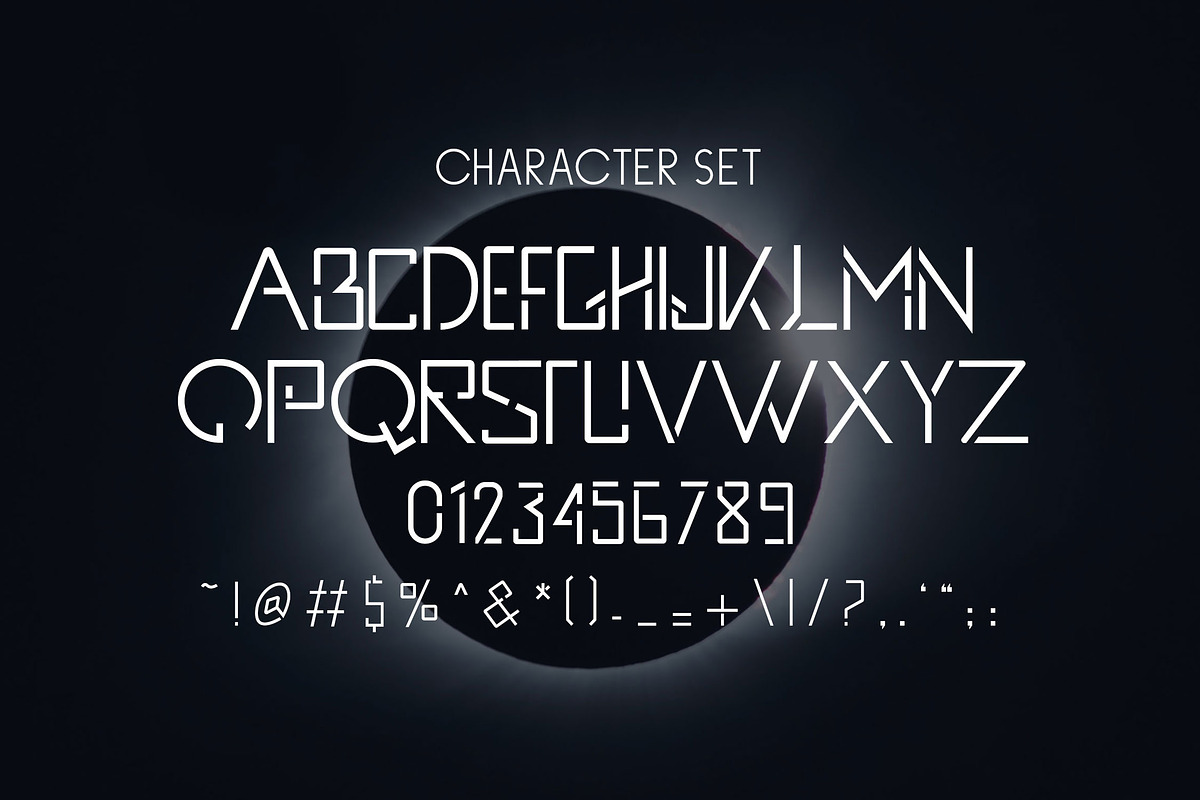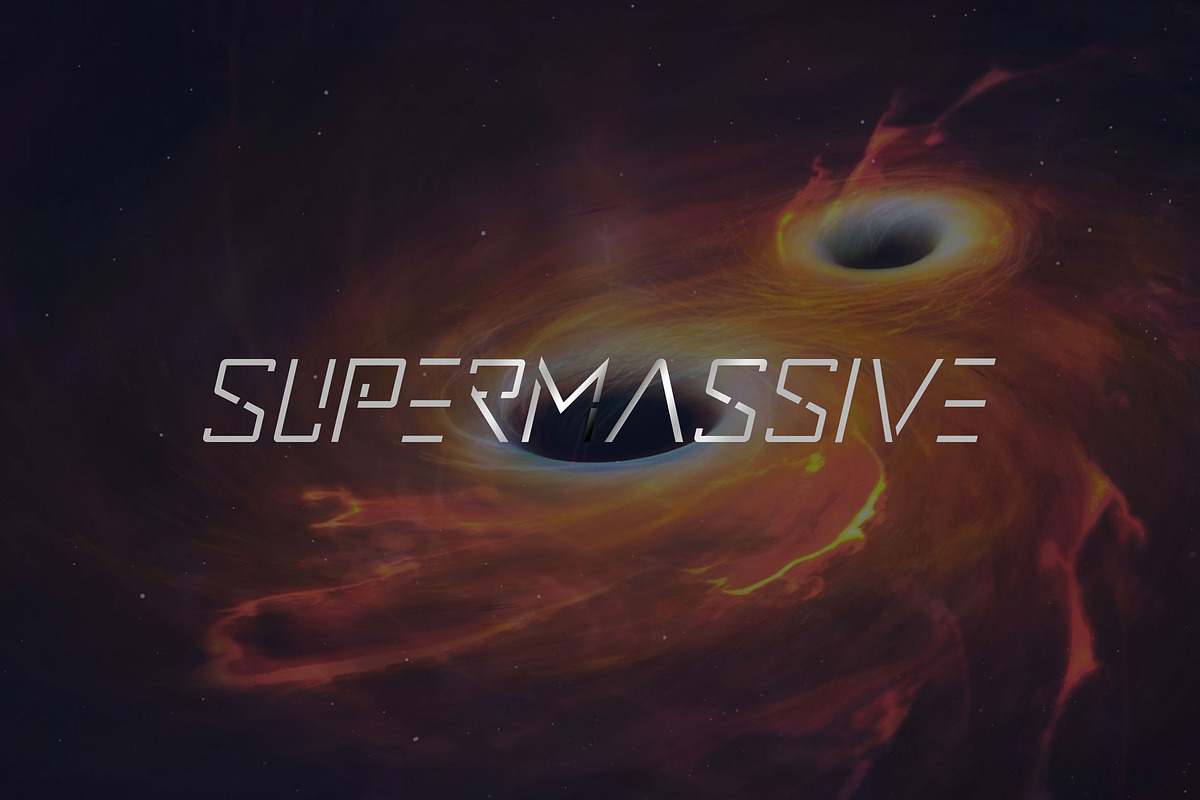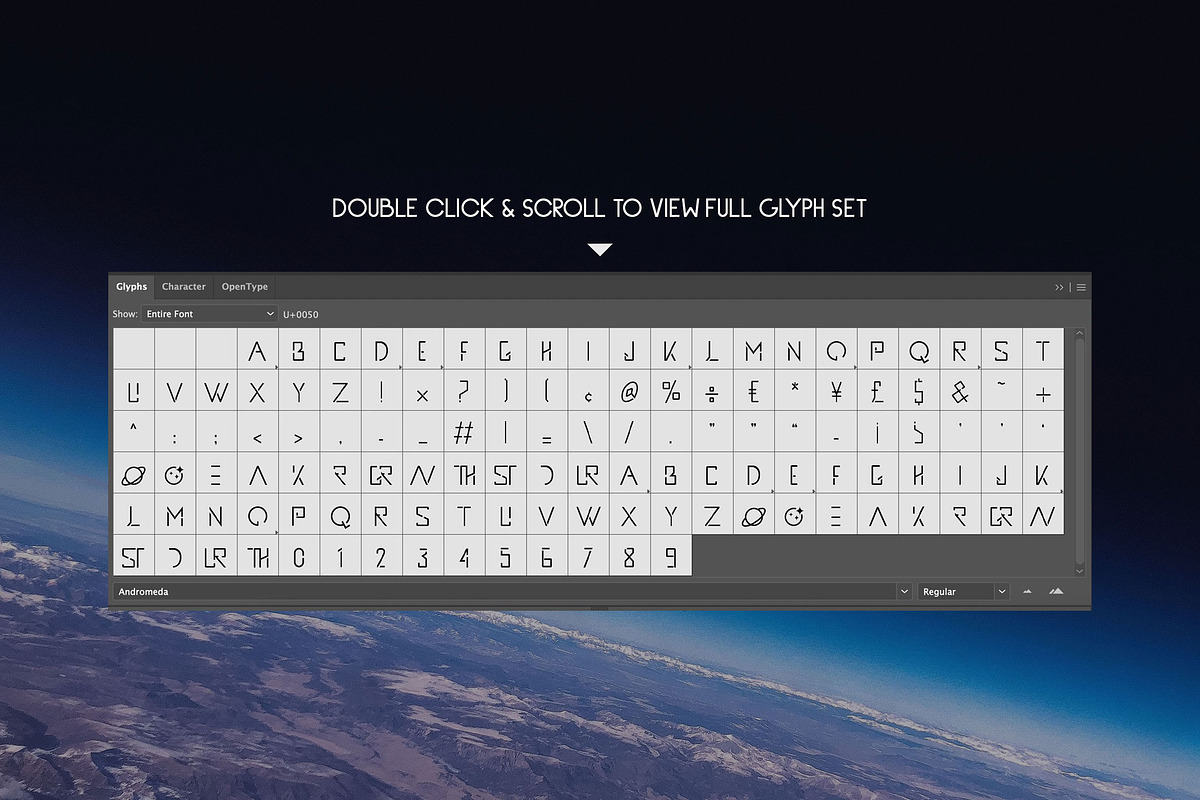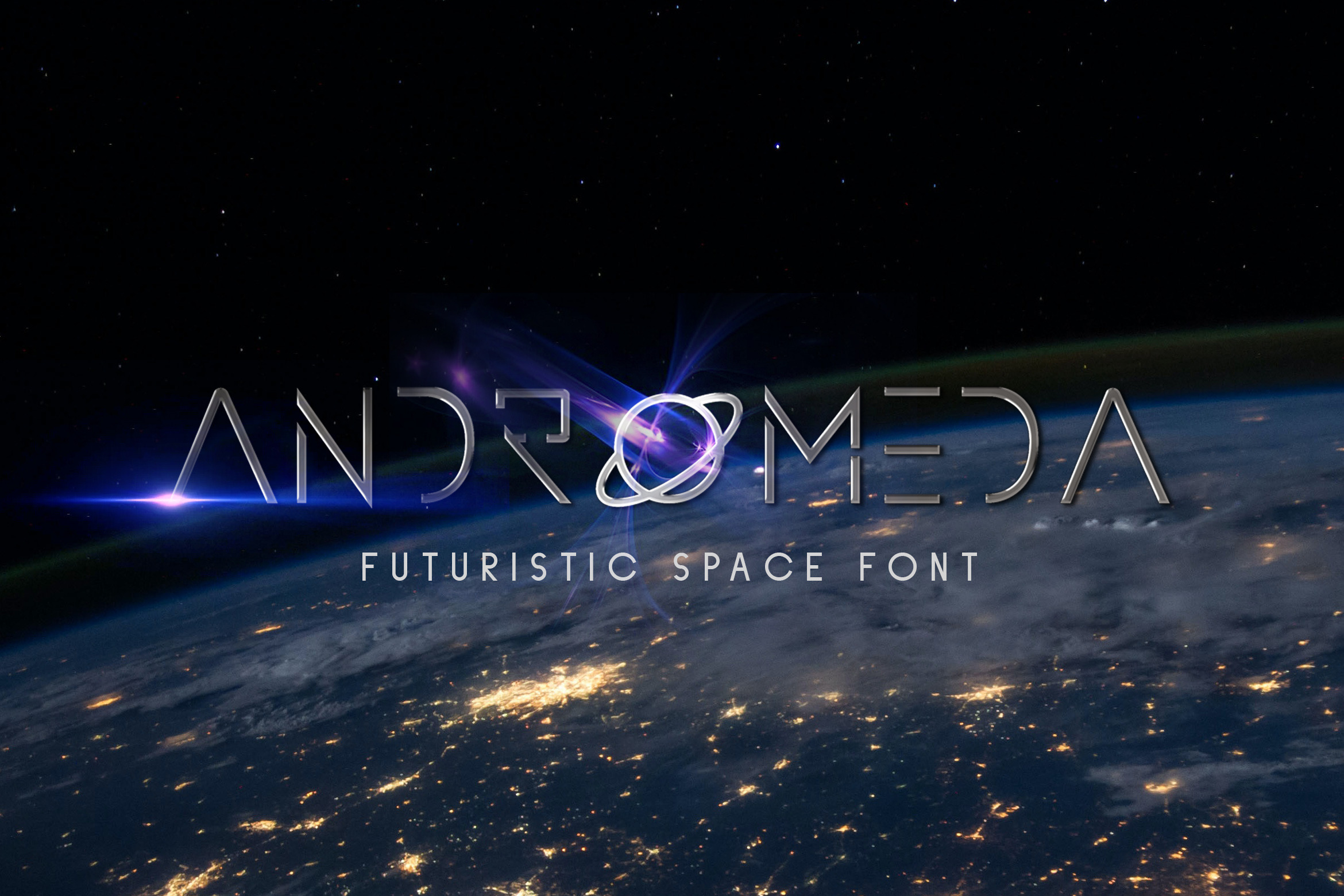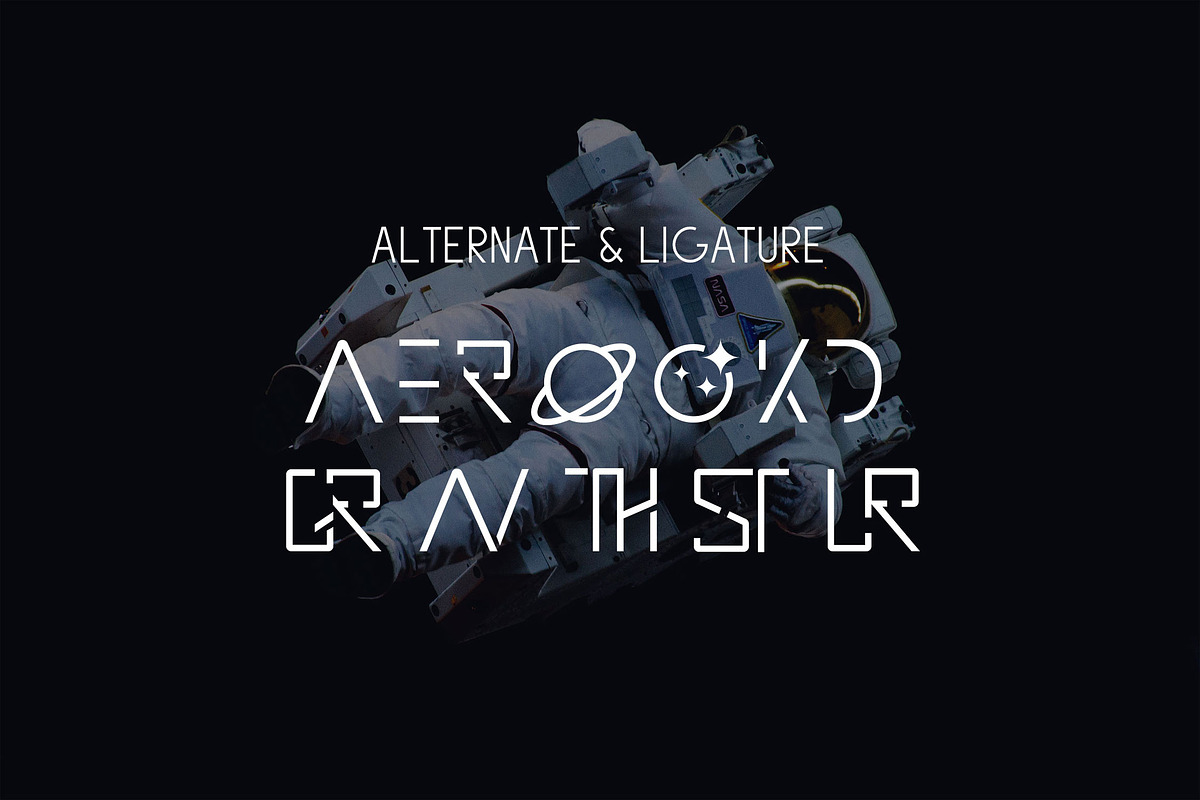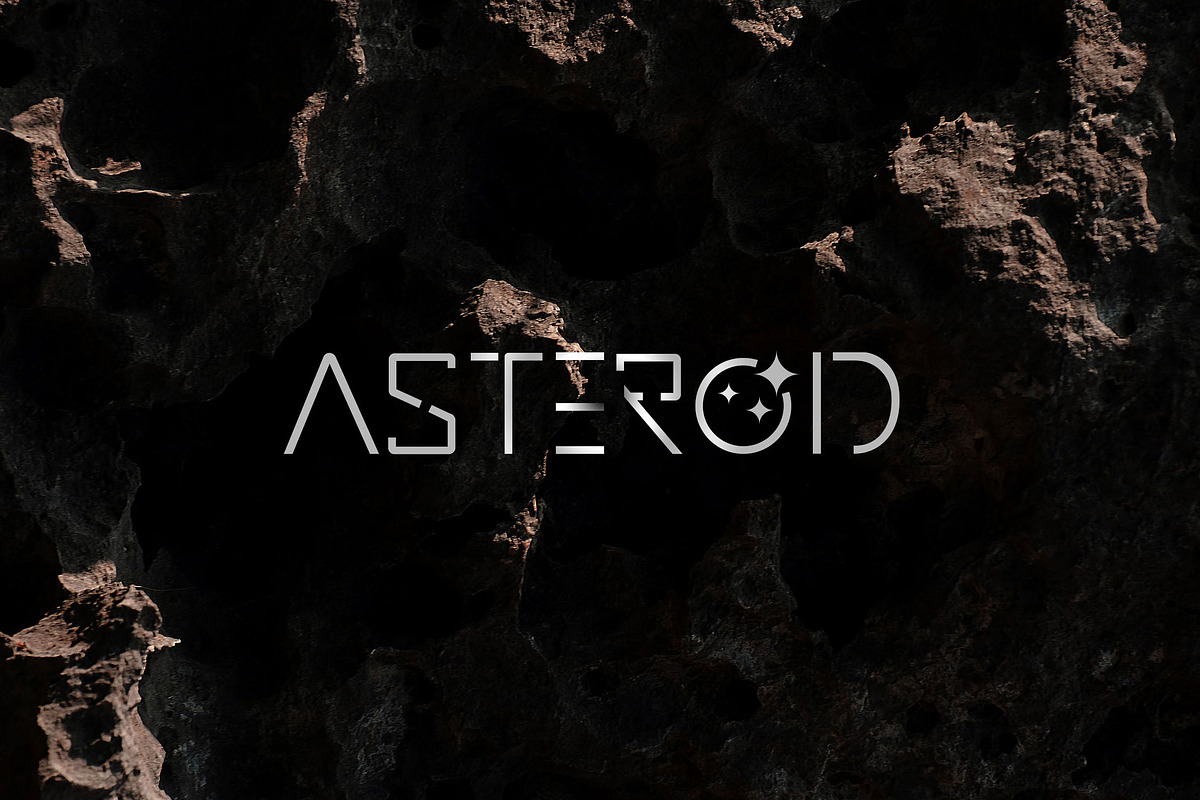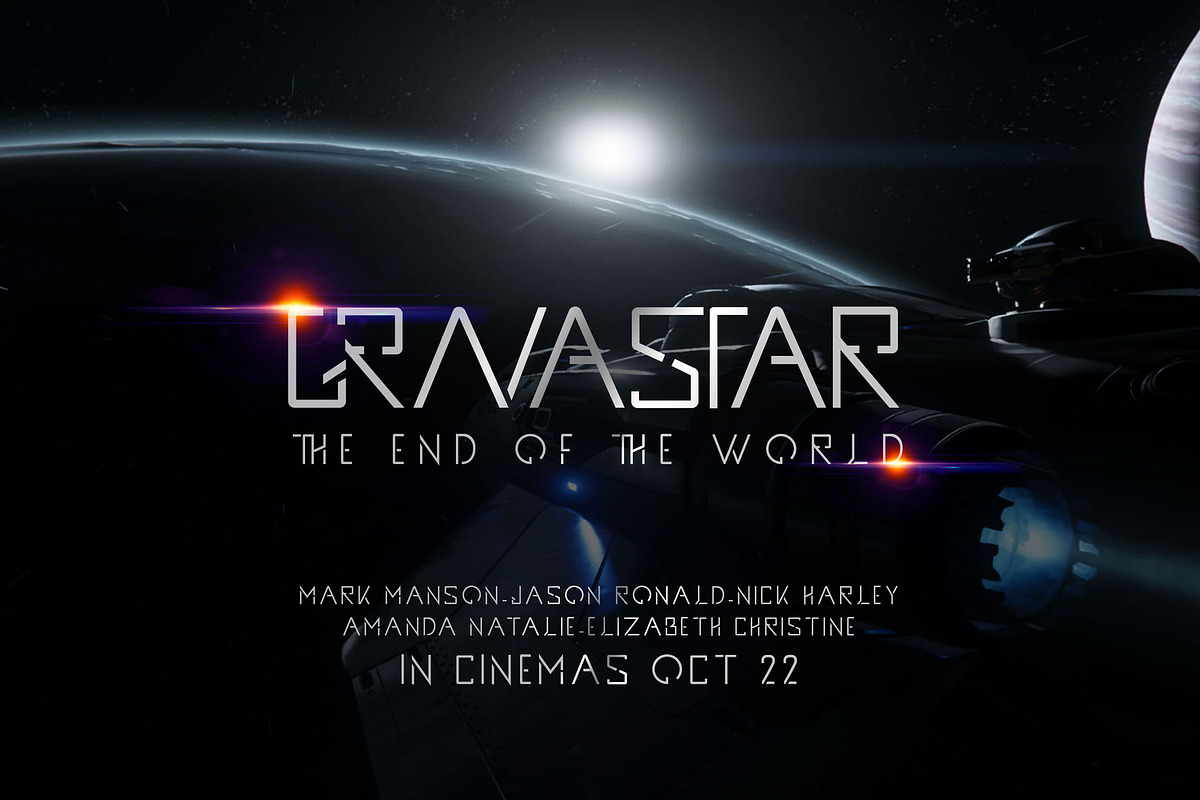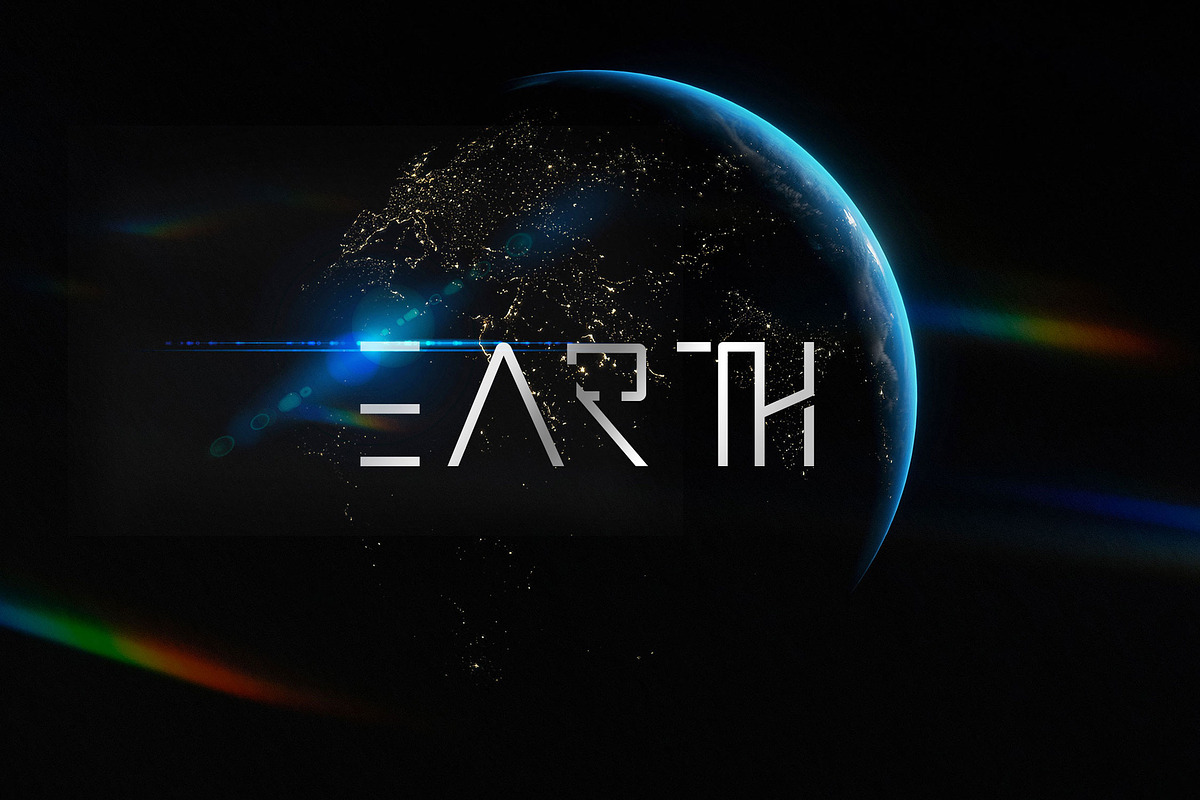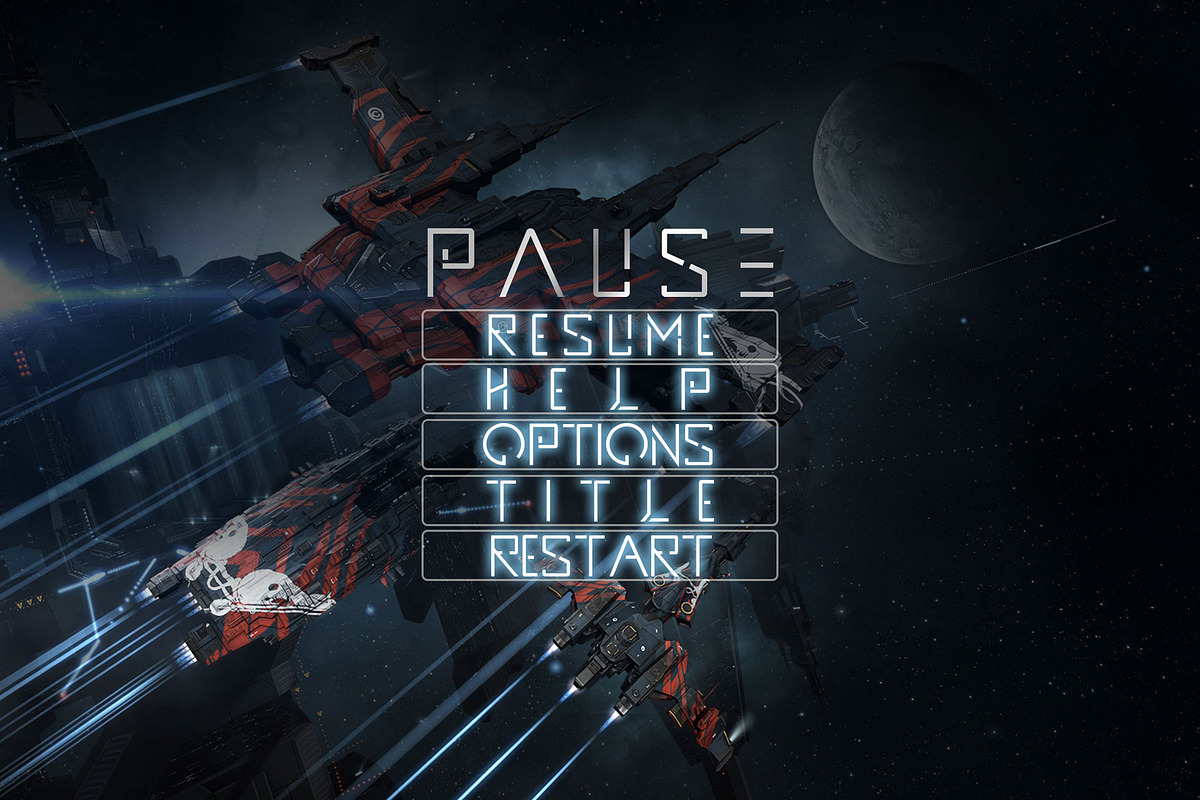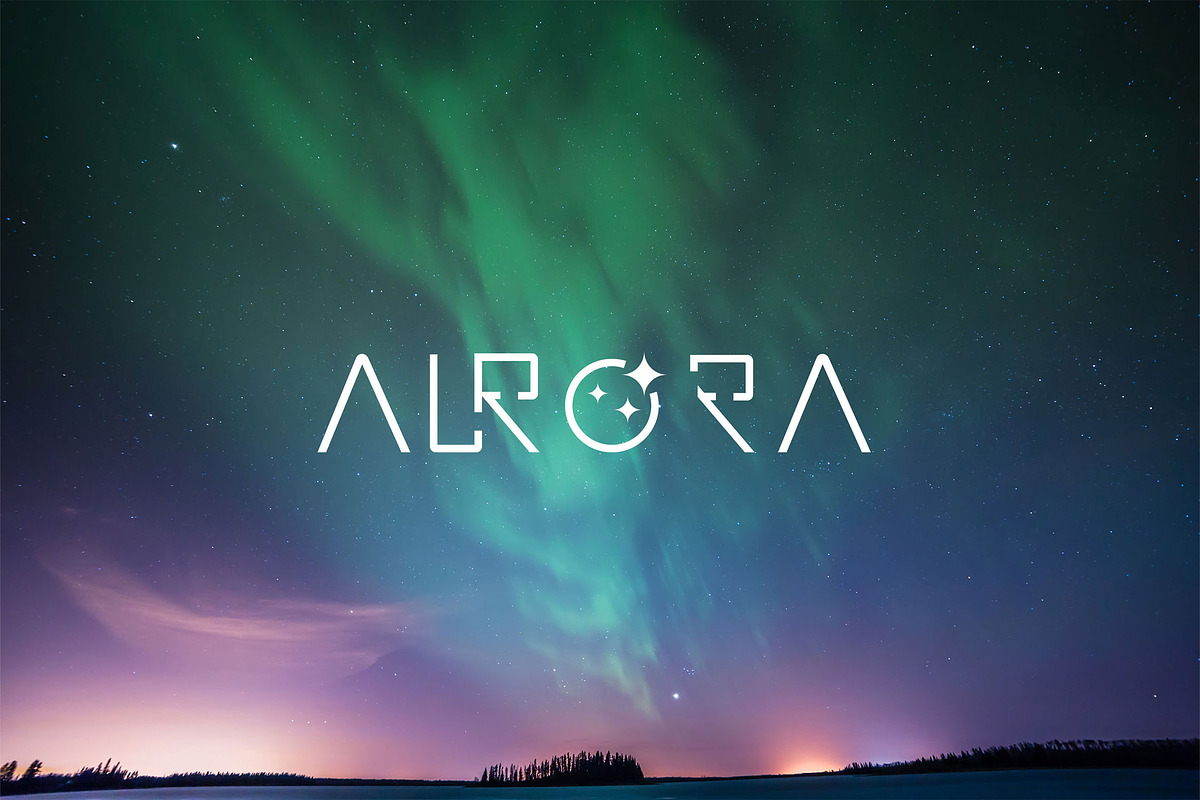
Andromeda - Space Futuristic Font
Introducing Andromeda, is a Futuristic Space Font has many purpose and suitable for badges, logotype, movies, tagline, space logo, space event, space education, advertising and much more
- Available Ligatures and Alternates